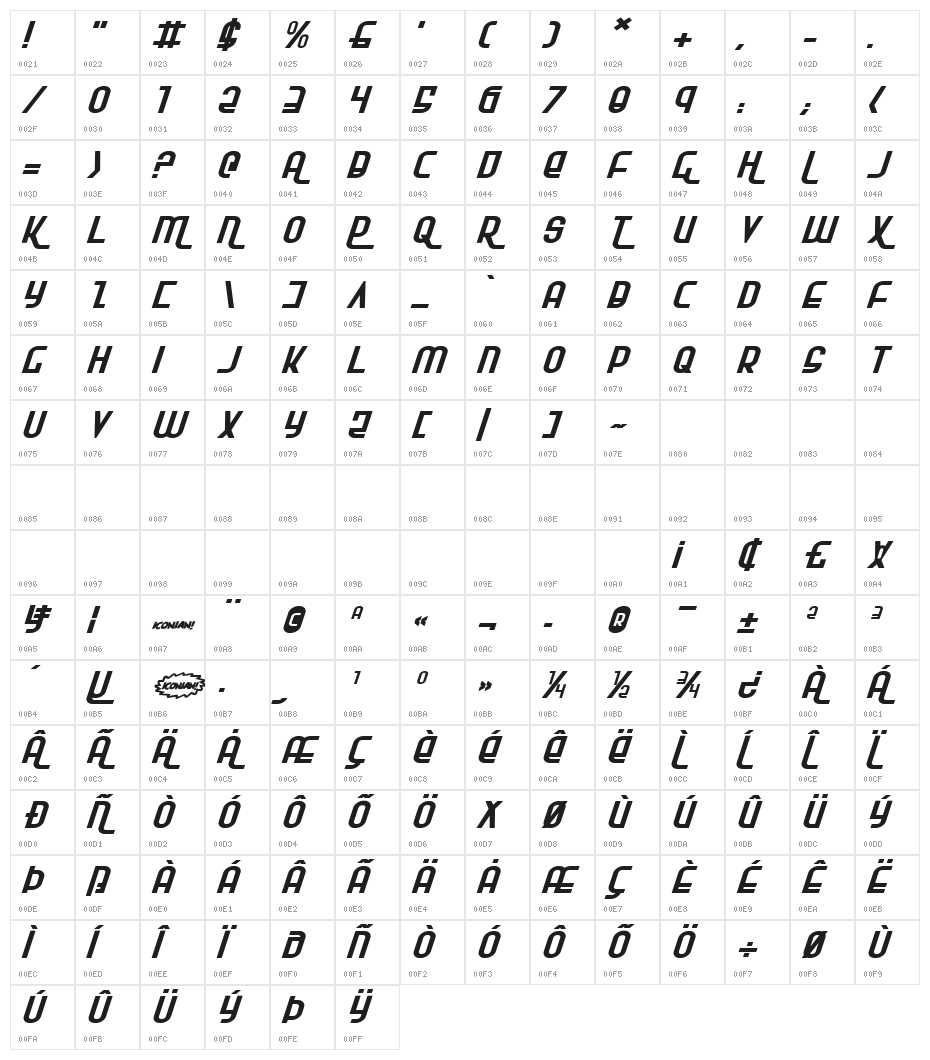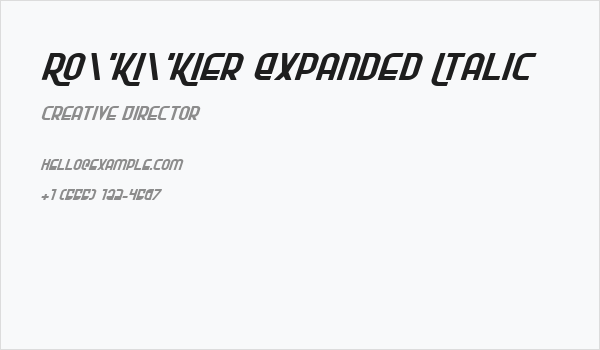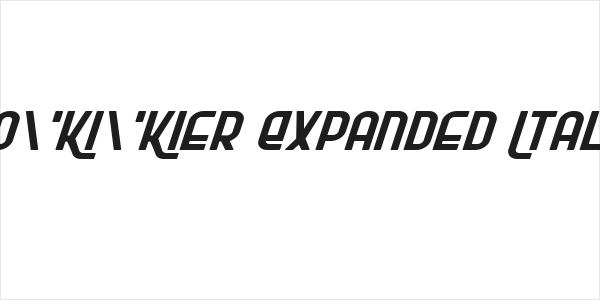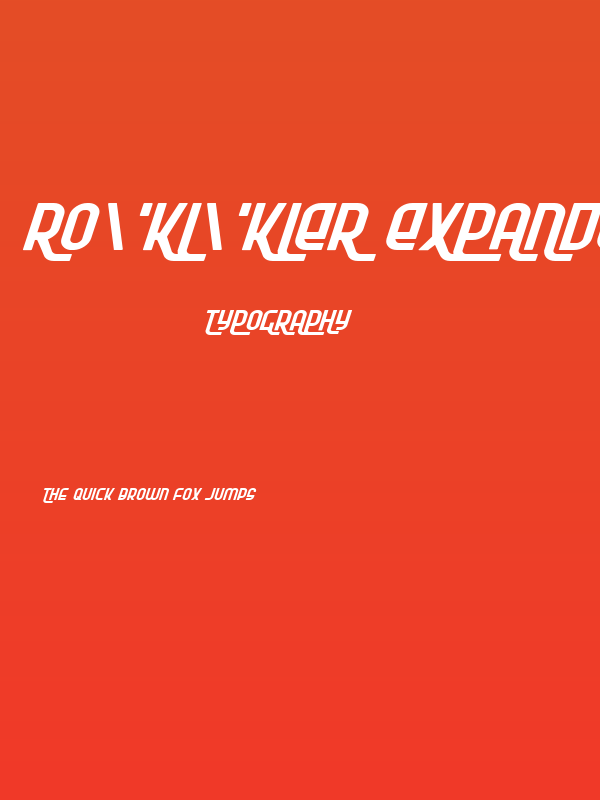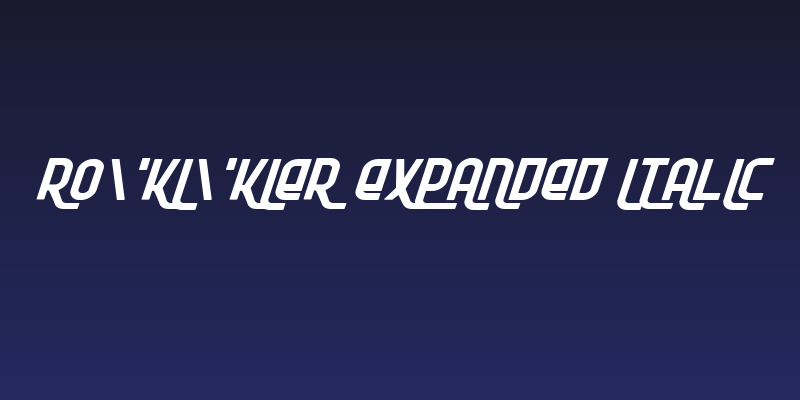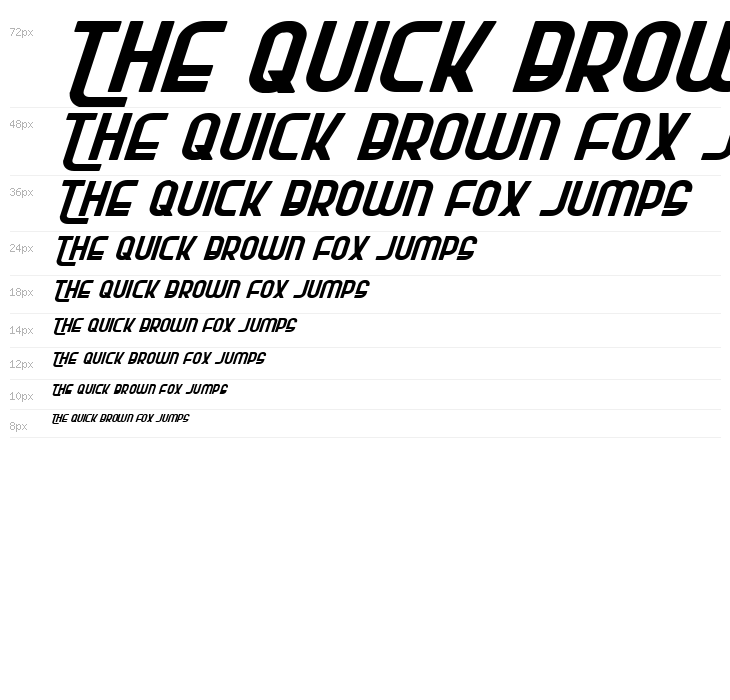
Ro'Ki'Kier Expanded Italic Font
Ro'Ki'Kier Expanded Italic Description
This font features a bold and dynamic style with an italic slant, giving it a sense of motion and energy. The characters are expanded, providing a wide and open appearance that enhances readability while maintaining a unique aesthetic. The strokes are consistent in thickness, offering a medium contrast that balances the boldness with clarity. Its design is modern and sleek, making it suitable for contemporary projects that require a touch of flair and sophistication. The font includes a full set of uppercase and lowercase letters, numbers, and a variety of special characters, ensuring versatility for different design needs.
| Proposed Projects | Ideal for sports branding, dynamic posters, modern advertising, and tech-related designs. |